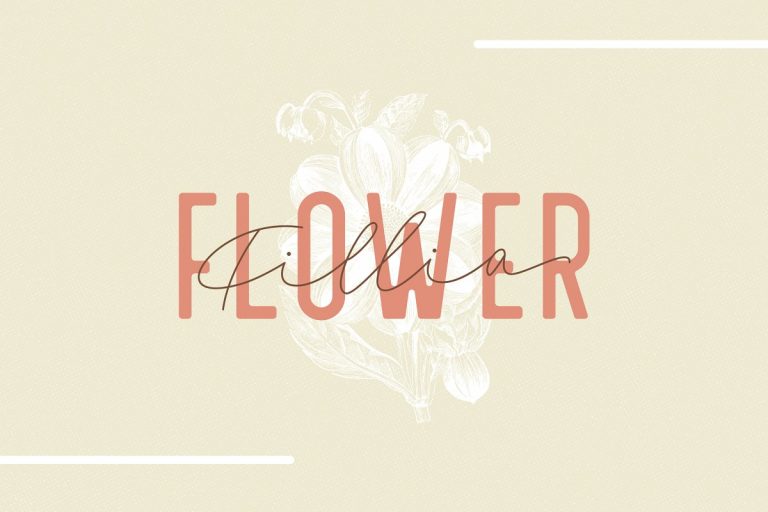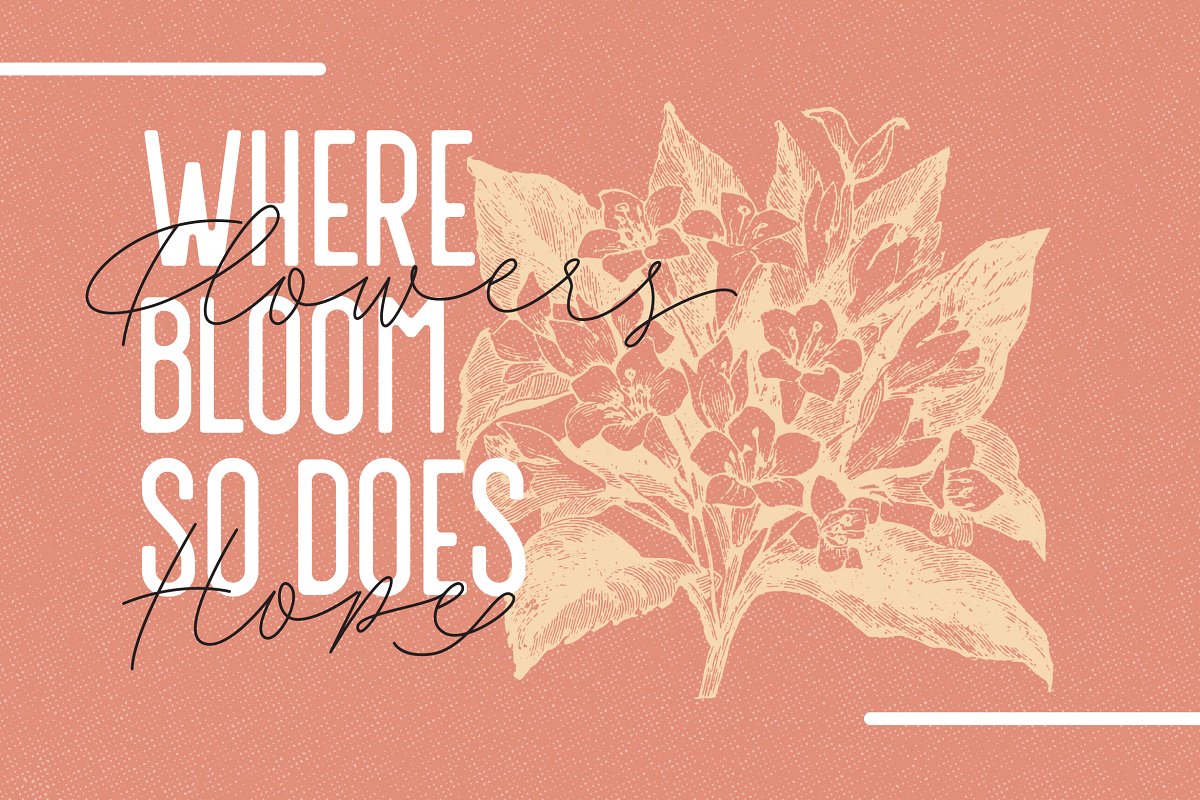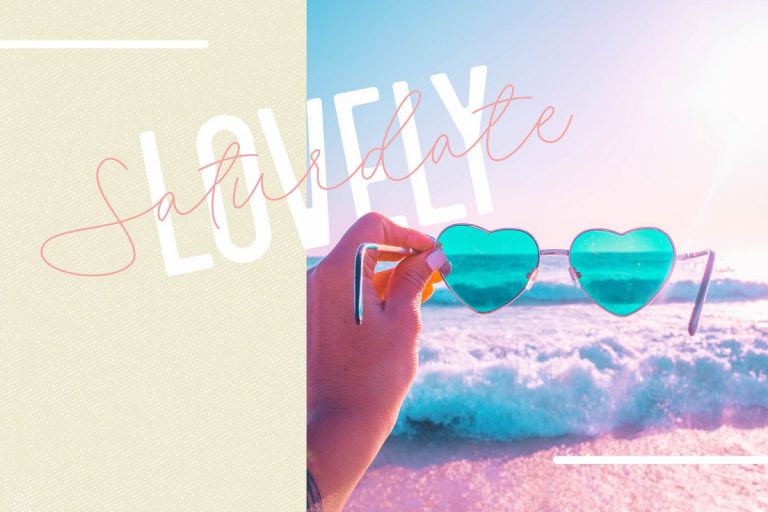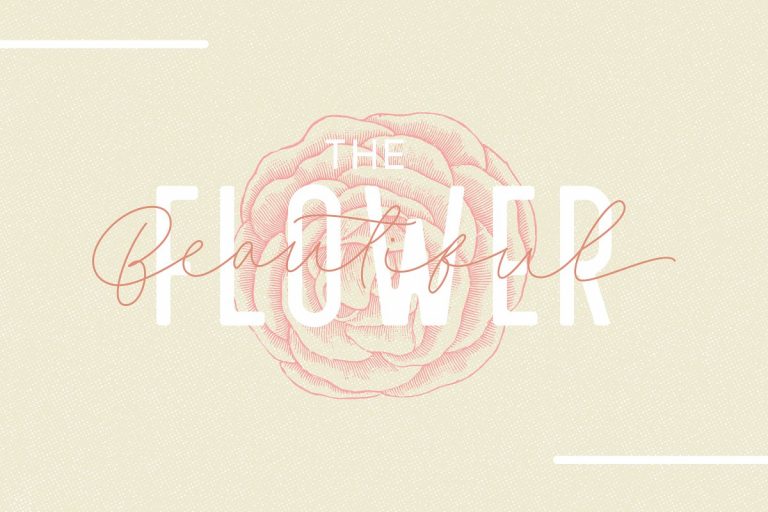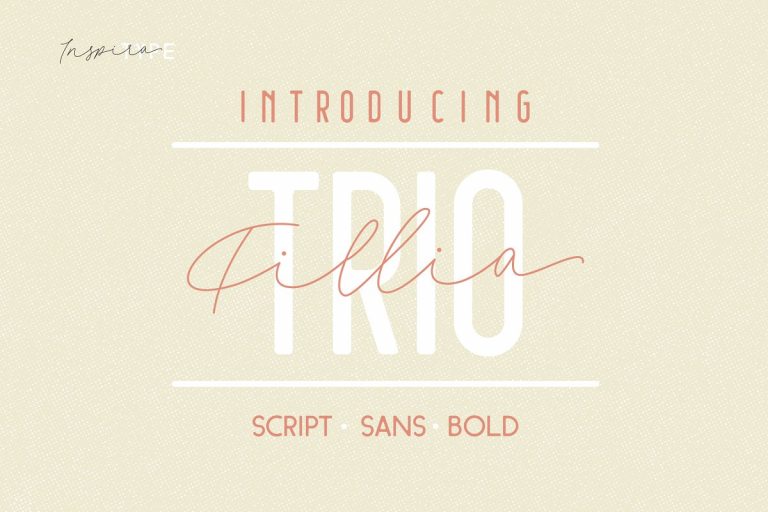
Filia Font Trio
Filia Font Trio – Free Demo
Hi Font Lover! This is a font trio with script font, includes 3 styles: Script, Sans, Bold, design and shared by Inspiratype. This handwritten font is ideal for branding and decorate your any project. Combine it with other fonts and add style in your project. Introducing Filia Trio. “Filia” is a font display is made by hand, inspired by classic posters. Comes with uppercase, lowercase, numerals, punctuations and so many variations on each character include OpenType alternates, common ligatures and also additional swash to let you customize your designs. Perfect to use for Logotype, Letterhead, Poster, Apparel Design, Label and etc.